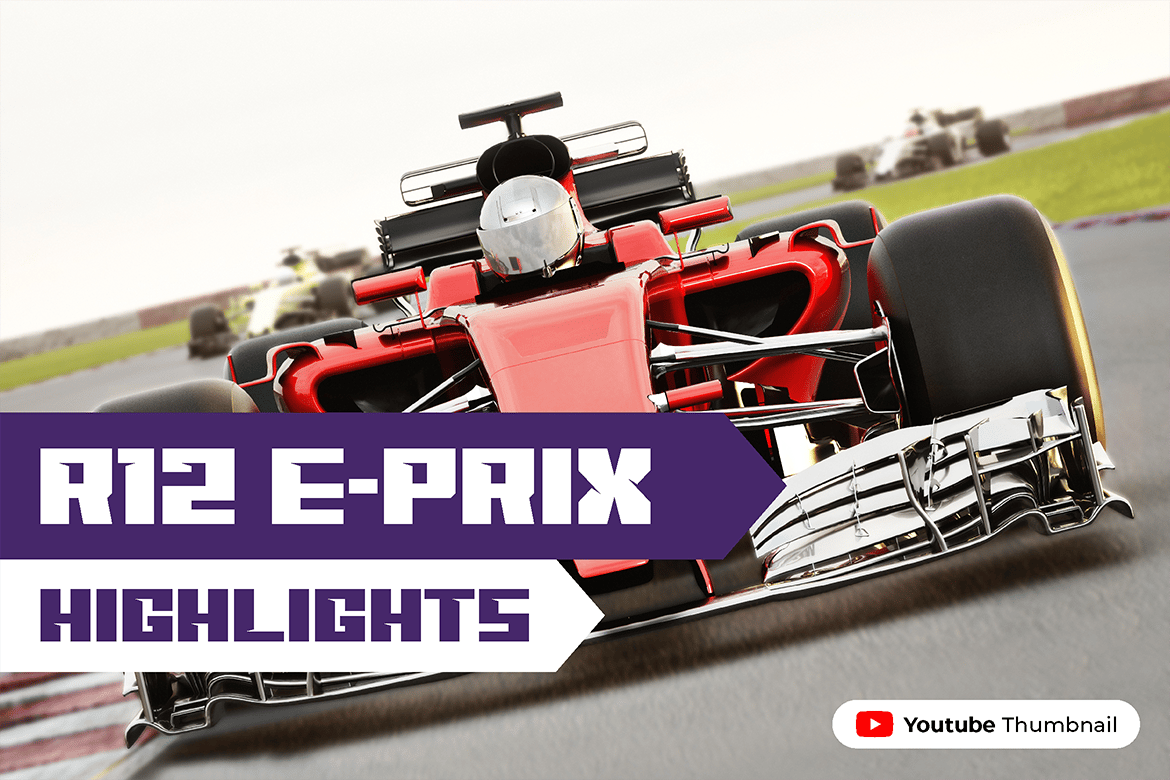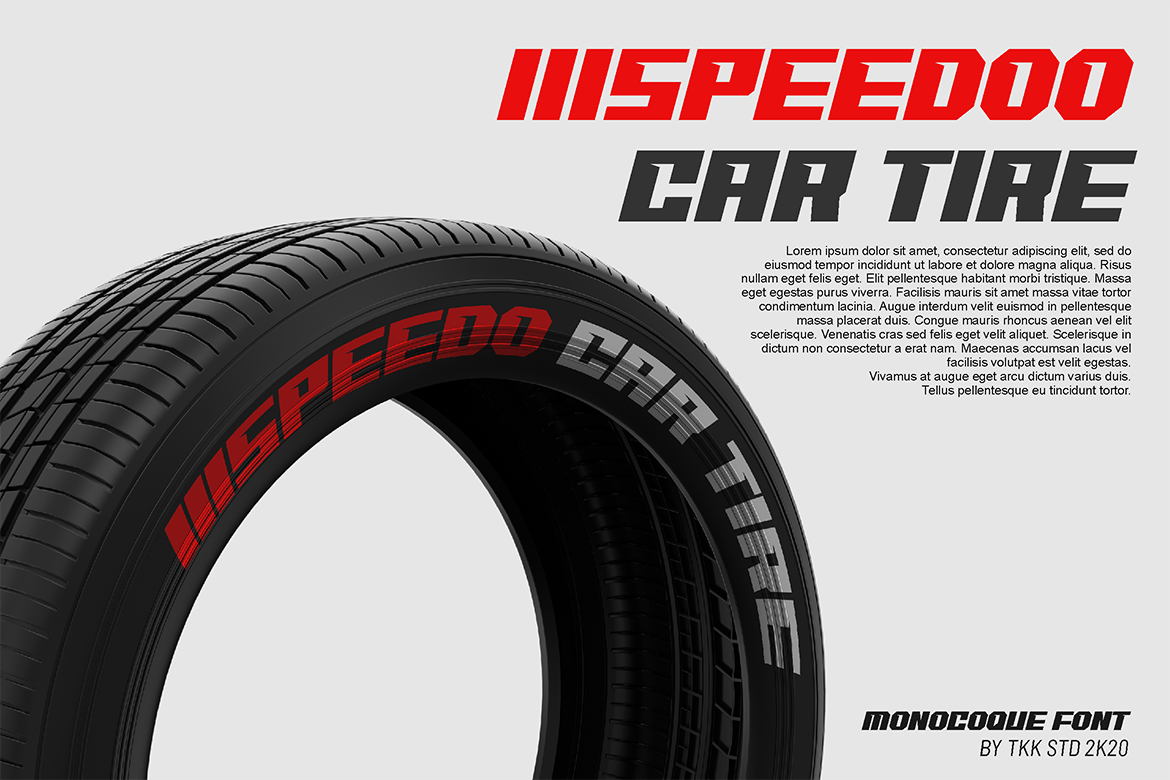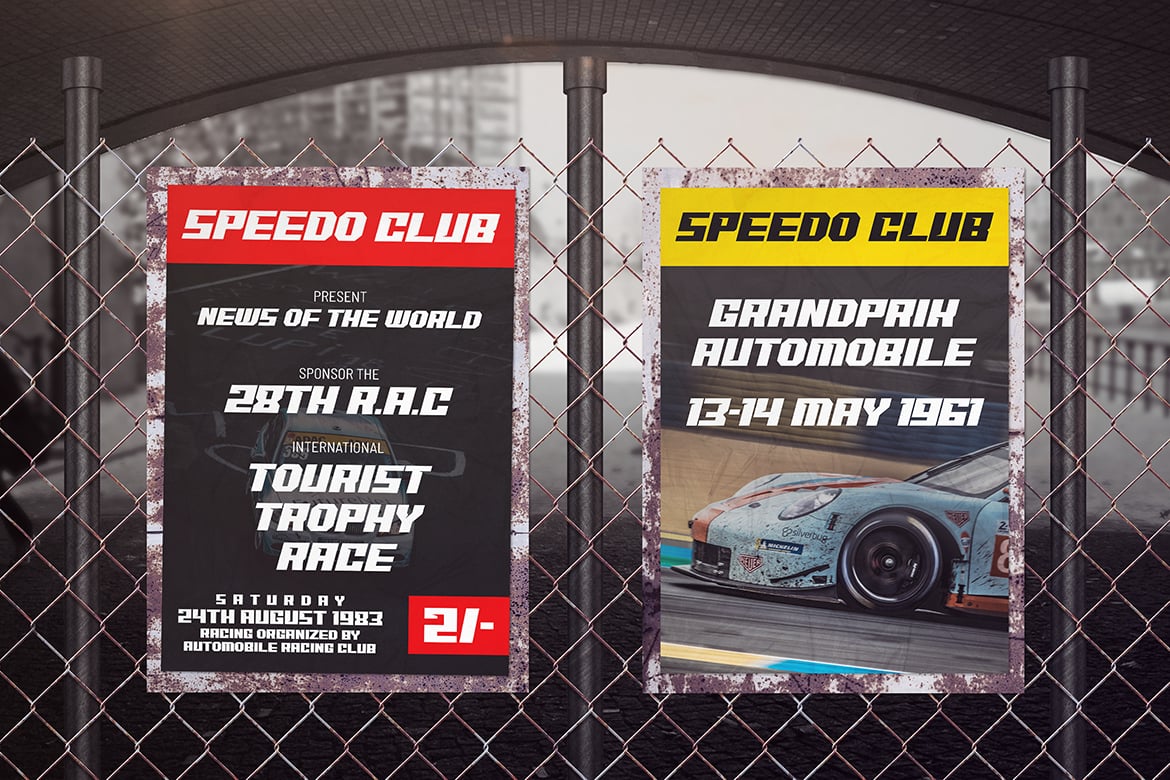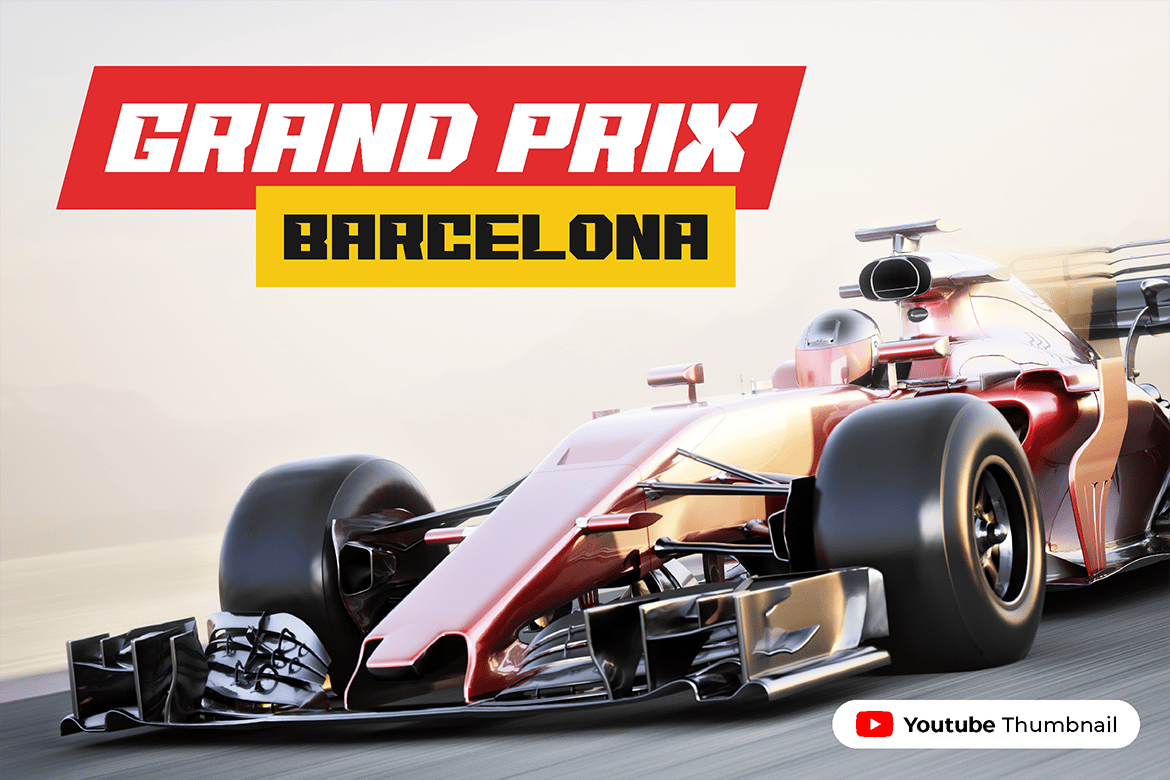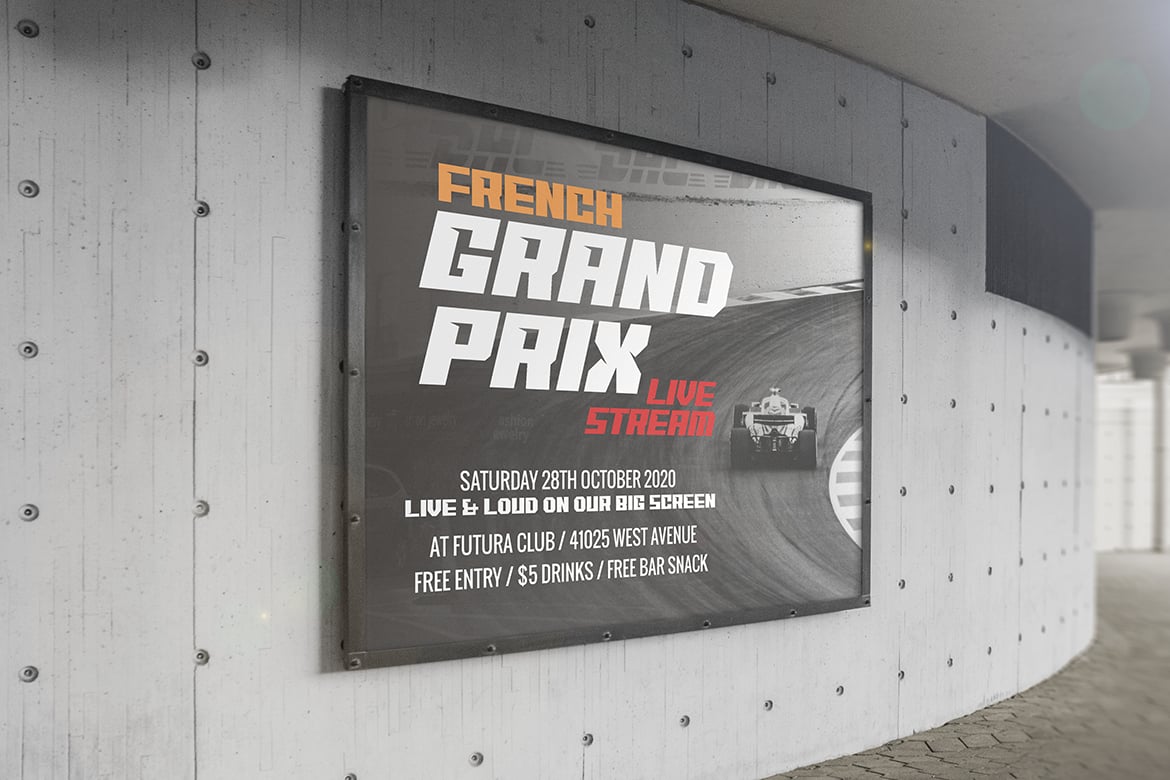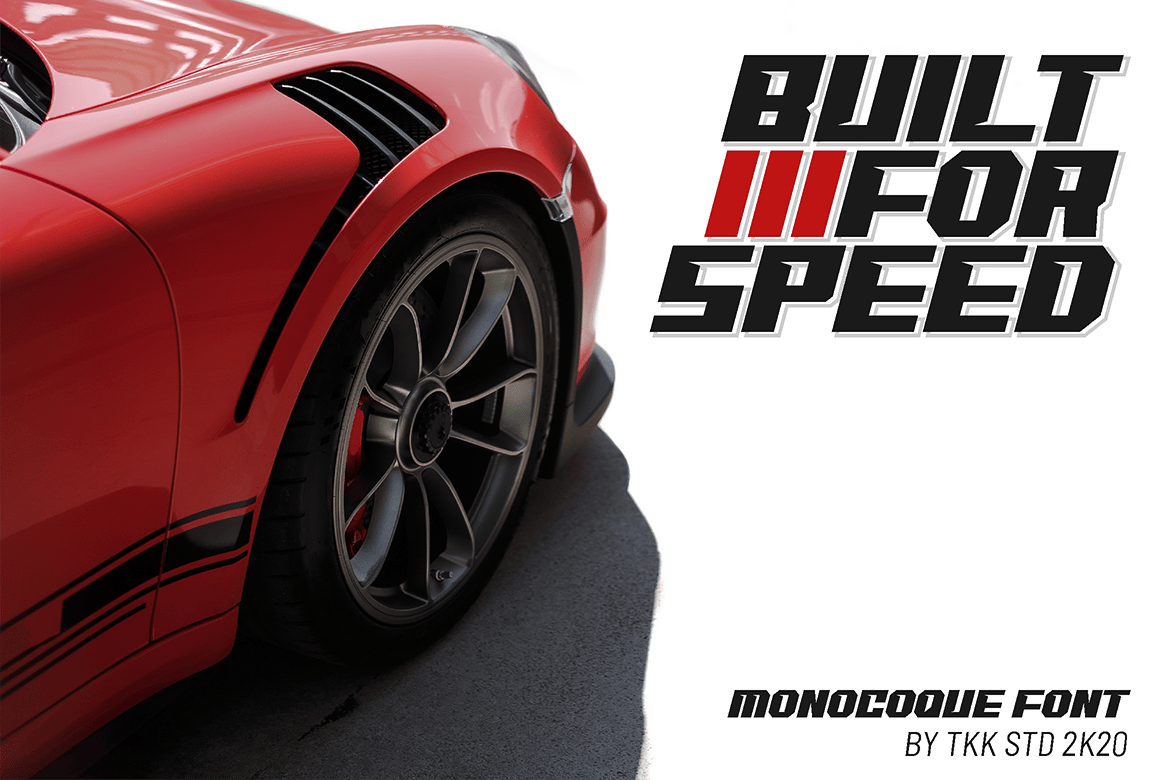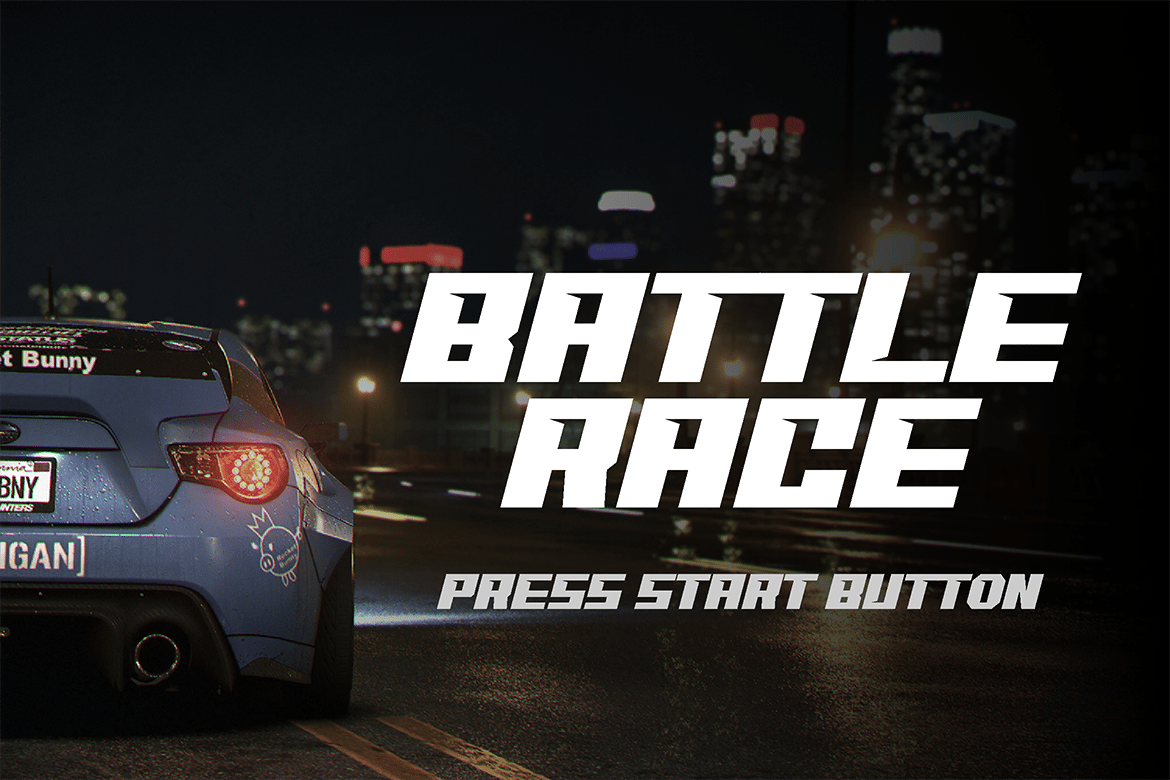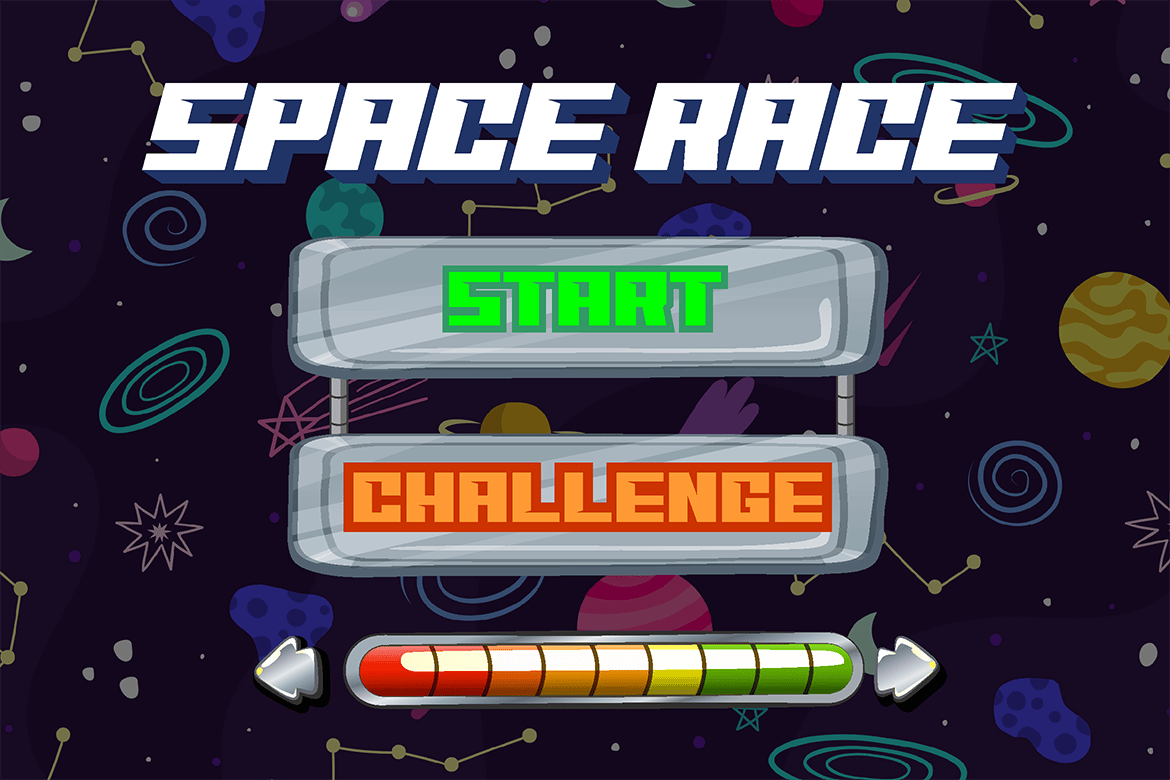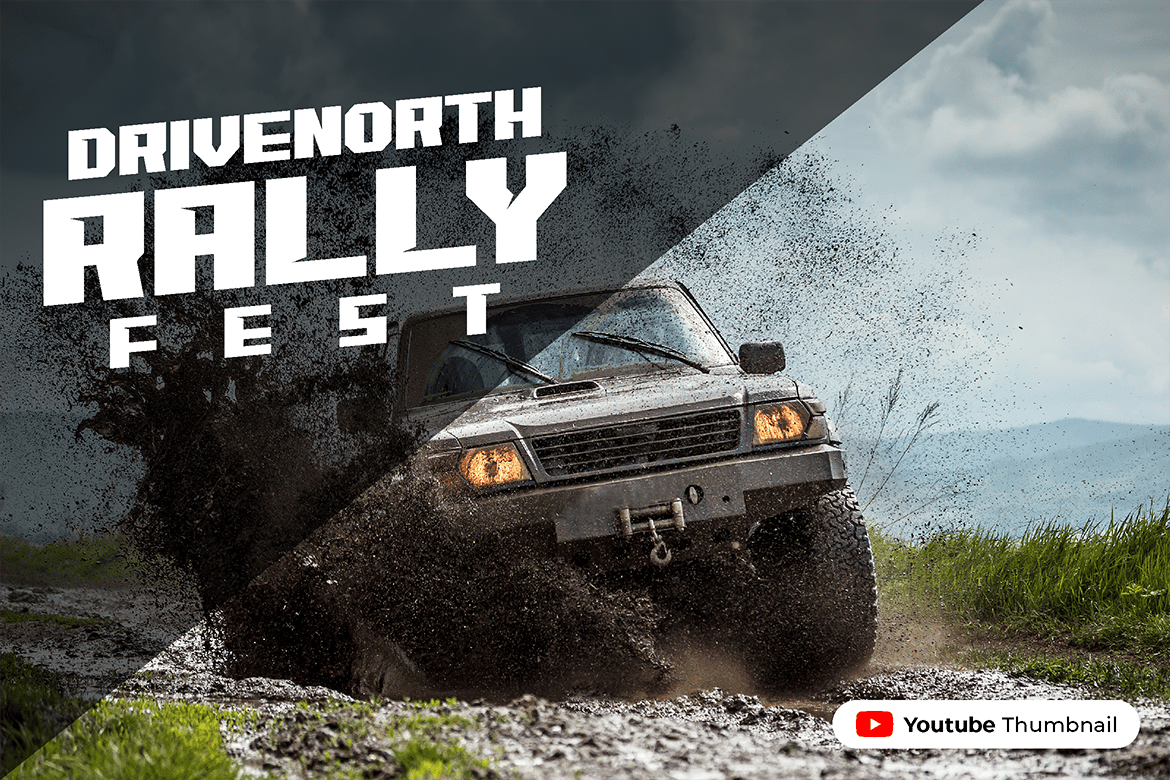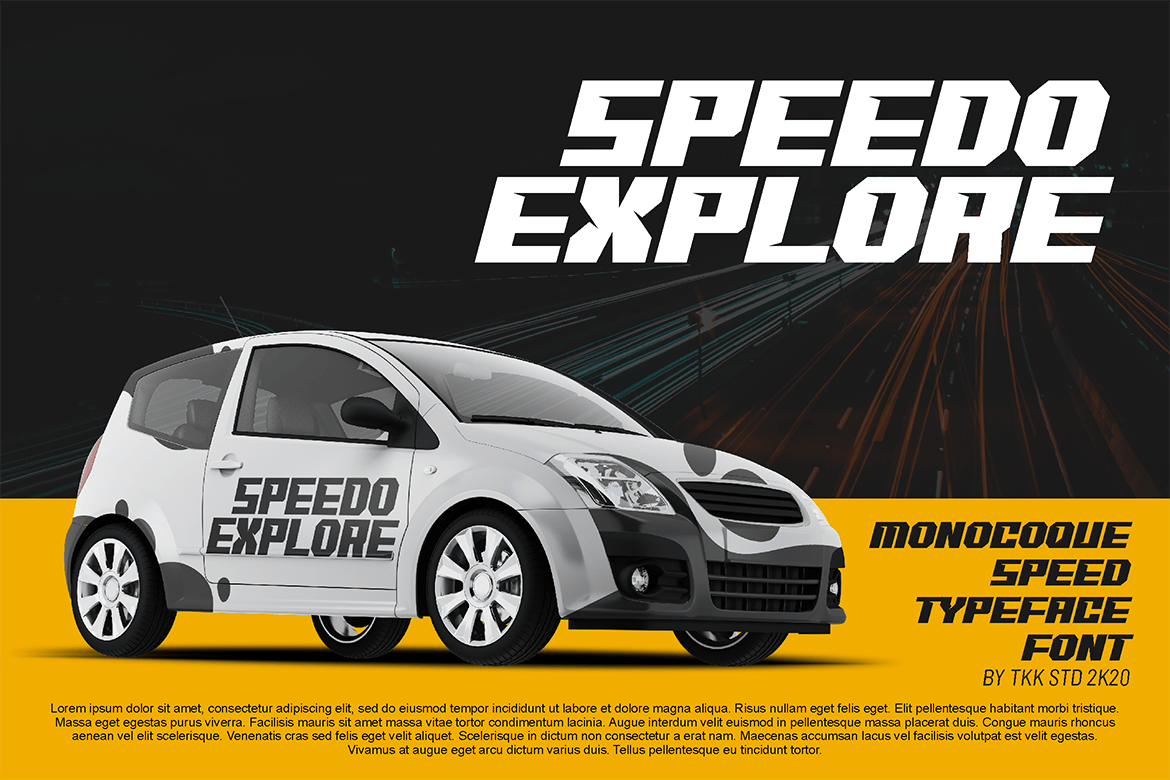
Car Racing Gaming Font – Monocoque
MONOCOQUE – A High-Speed Font for Motorsport & Performance Branding
MONOCOQUE is a sleek, aerodynamic display font built for speed, power, and precision. Inspired by the world of motorsports, supercars, and endurance racing, this typeface is engineered to capture the thrill of motion and high-performance design.
With its sharp angles, dynamic letterforms, and modern racing aesthetics, MONOCOQUE is perfect for race team branding, speed-focused advertising, car tuning shops, and automotive product packaging. Whether you’re designing Formula 1 promo materials, tire branding, or high-performance sports gear, this font delivers an unmistakable sense of adrenaline and movement.
Why Choose MONOCOQUE?
- Aerodynamic & Aggressive – A typeface designed for speed-driven aesthetics.
- Perfect for Racing & Automotive Branding – Ideal for motorsports, car events, and supercar promotions.
- High-Impact & Futuristic – Captures the energy of modern racing culture.
- Versatile Across Digital & Print – Works on posters, sponsorship graphics, product packaging, and digital ads.
- Precision Engineered for Performance – A font that embodies motion, speed, and cutting-edge design.
- Reguler and Italic